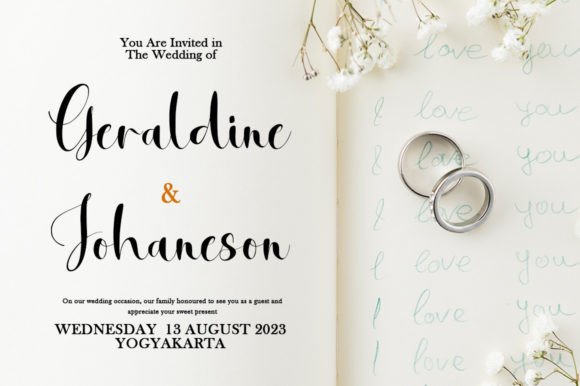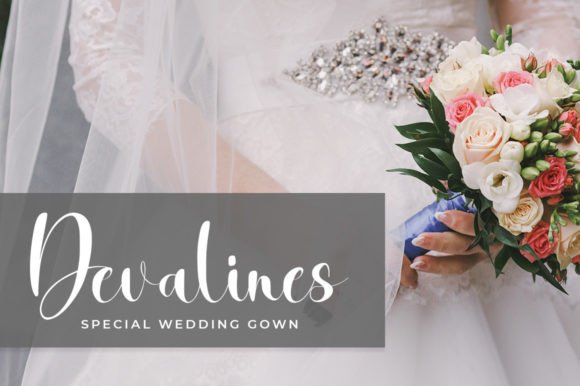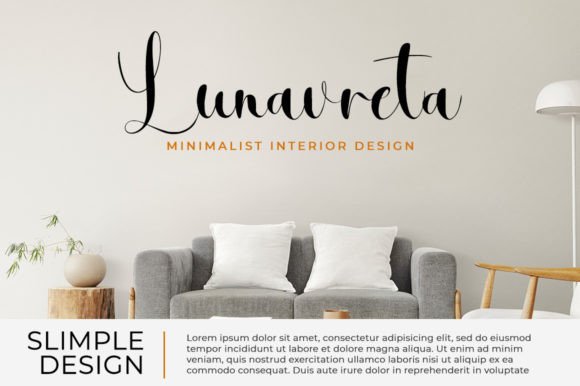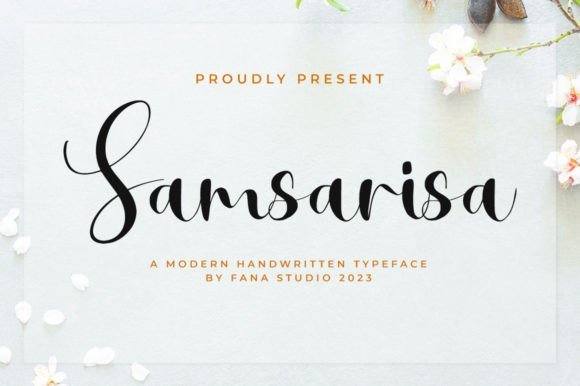
Introduction to Samsarisa Font
Samsarisa feels equally charming and elegant.
It looks stunning on wedding invitations, thank you cards, quotes, greeting cards, logos, business cards, and every other design which needs a handwritten touch .
Samsarisa Font offers exceptional quality and versatility, making it a valuable addition to your design toolkit. Whether you’re creating for personal projects or commercial use, Samsarisa Font delivers professional results.